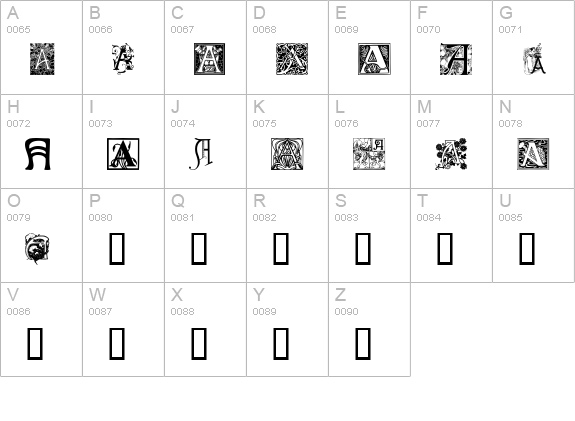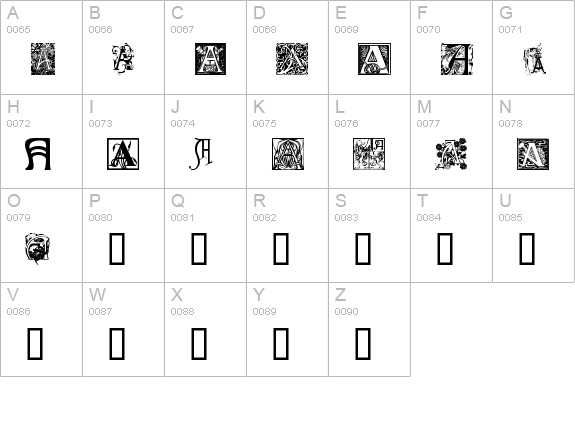
Art Nouveau Initials A Font Details
The Art Nouveau Initials A font is a stunning display font inspired by the intricate and elegant designs of the Art Nouveau movement. With its flowing lines and elaborate details, this font exudes a sense of sophistication and charm. The ornate initials add a touch of vintage flair to any project, making it perfect for invitations, branding, and other creative endeavors. Best of all, this font is available for free download at FontsMarket.com. Embrace the beauty and grace of Art Nouveau with the Initials A font and add a touch of timeless elegance to your designs.